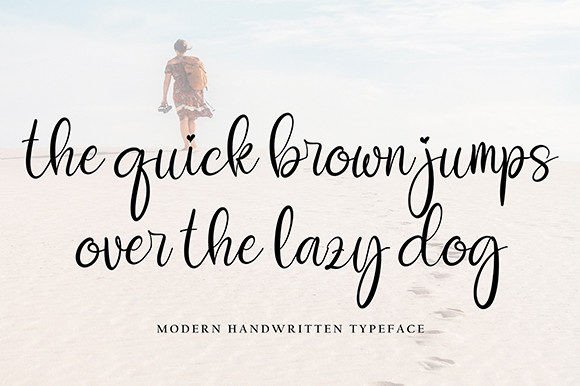
Introduction to Raberick Emilyn Font
Have you ever found yourself staring at a blank page, desperate for that one perfect font to bring your creative project to life? It’s a moment we’ve all been there, searching for that elusive combination of style and sophistication to elevate our designs. For those seeking a high-quality, elegant solution, look no further than the Raberick Emilyn Font.
| 👤 Author | Pineungtype & Missinklab |
This beautiful script font is a design resource that exudes class and refinement, making it the perfect choice for any creative project that demands a touch of sophistication. With its delicate curves and transparent background, the Raberick Emilyn Font is a free download that’s sure to add a refreshing touch to your designs.
Whether you’re a seasoned designer or just starting out, the Raberick Emilyn Font is a valuable addition to your toolkit, offering a unique and stylish solution that’s sure to set your designs apart from the rest.
Key Features of Raberick Emilyn Font
- High-quality, elegant design perfect for creative projects, including wedding invitations, quotes, and more.
- Each character is carefully crafted with attention to detail, resulting in a unique and sophisticated look.
- Supports a wide range of languages, making it a versatile design resource for global projects.
Honest Review: Raberick Emilyn Font
I recently stumbled upon the Raberick Emilyn Font, and I must say it’s a fantastic addition to any designer’s toolkit. As a design enthusiast, I appreciate high-quality fonts that can elevate a creative project. This font is a perfect example of that.
- ✨ Beautiful, elegant design that’s perfect for various creative projects
- ✨ Includes a transparent background, making it easy to use in different design contexts
While the Raberick Emilyn Font is a great resource, there are some limitations to consider:
- ⚠️ Limited font styles and weights available, which may not be suitable for complex designs
Overall, I’m impressed with the Raberick Emilyn Font. It’s a high-quality design resource that’s perfect for a wide range of creative projects. With its elegant design, transparent background, and free download, it’s a must-have for any designer looking to add some flair to their work.
Raberick Emilyn Font
The Raberick Emilyn Font is a high-quality, elegant script font that is perfect for any creative project. With its transparent background and clean design, it’s a valuable resource for designers and writers alike.
The Raberick Emilyn Font is perfect for creating wedding invitations, baby shower invitations, and other special occasion graphics. It’s also great for creating branding materials, such as logos and business cards.
Is the Raberick Emilyn Font suitable for print and digital use?
Yes, the Raberick Emilyn Font is designed to be versatile and can be used in both print and digital applications. Its high-quality design and transparent background make it a great choice for use in a variety of mediums, from business cards and brochures to digital interfaces and websites.